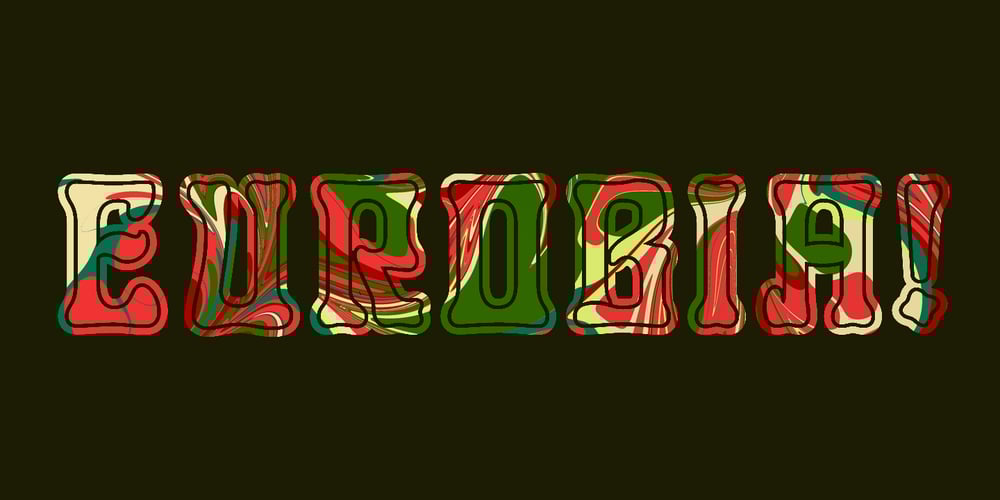
Eurobia
Eurobia font
Eurobia Font Family was designed by Paul James Lloyd and published by Greater Albion Typefounders. Eurobia contains 2 styles and family package options. Eurobia is a family of two typefaces – Regular and Plain. They are display faces with a strongly European feel and a strong flavour of the 1920s. My suggestion would be to use them for poster or banner work, or packaging or cover design, with the heading text set in Eurasia Regular and subsidiary text set in Eurobia plain. Why not give that European flavour to your next project? We see Eurobia as a fun typeface, for advertising products like confectionery or concerts. We had a lot of fun designing it and hope you’ll like it too!